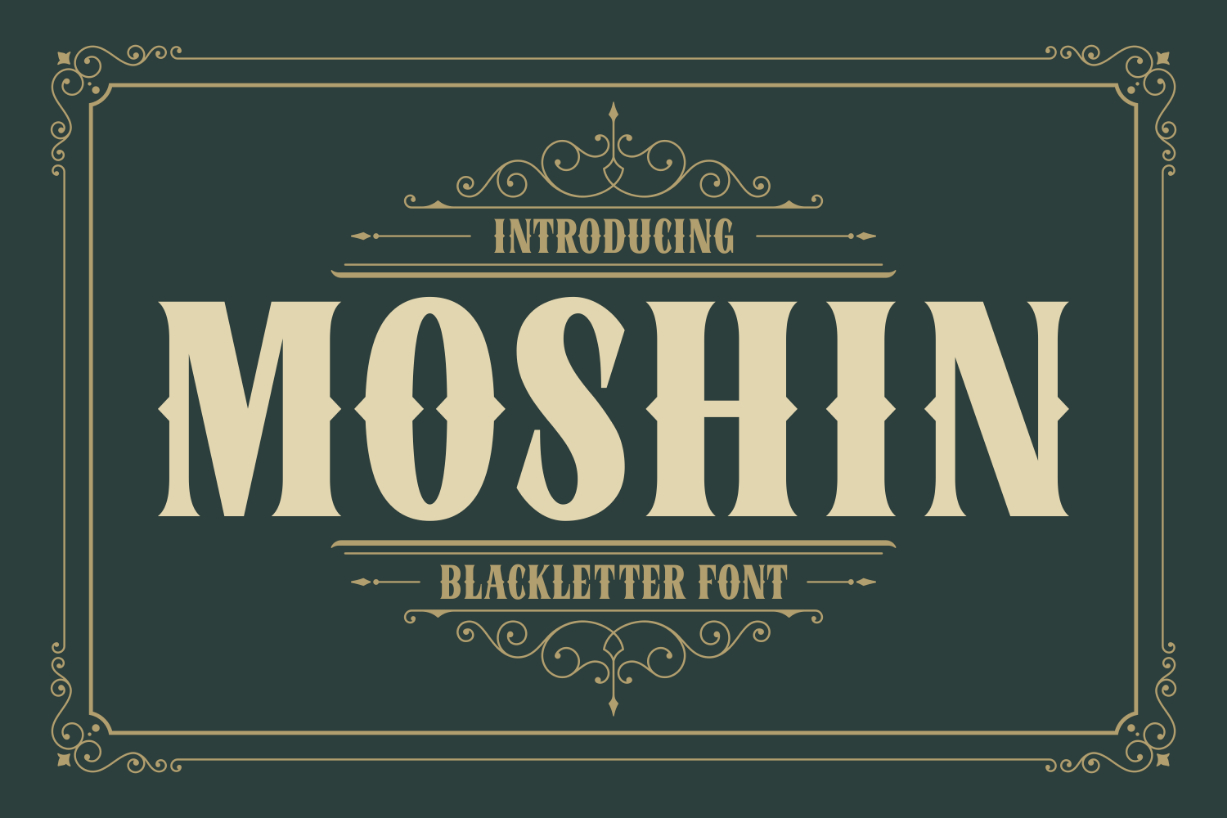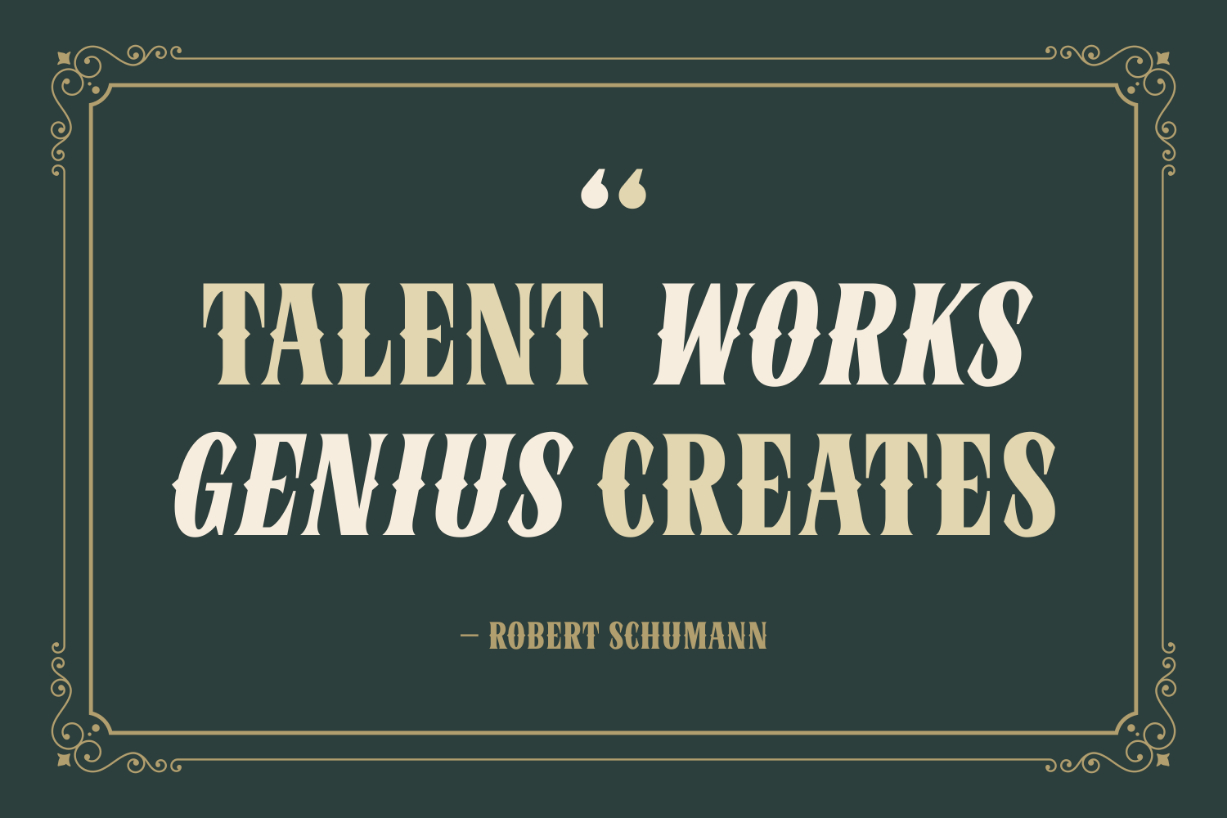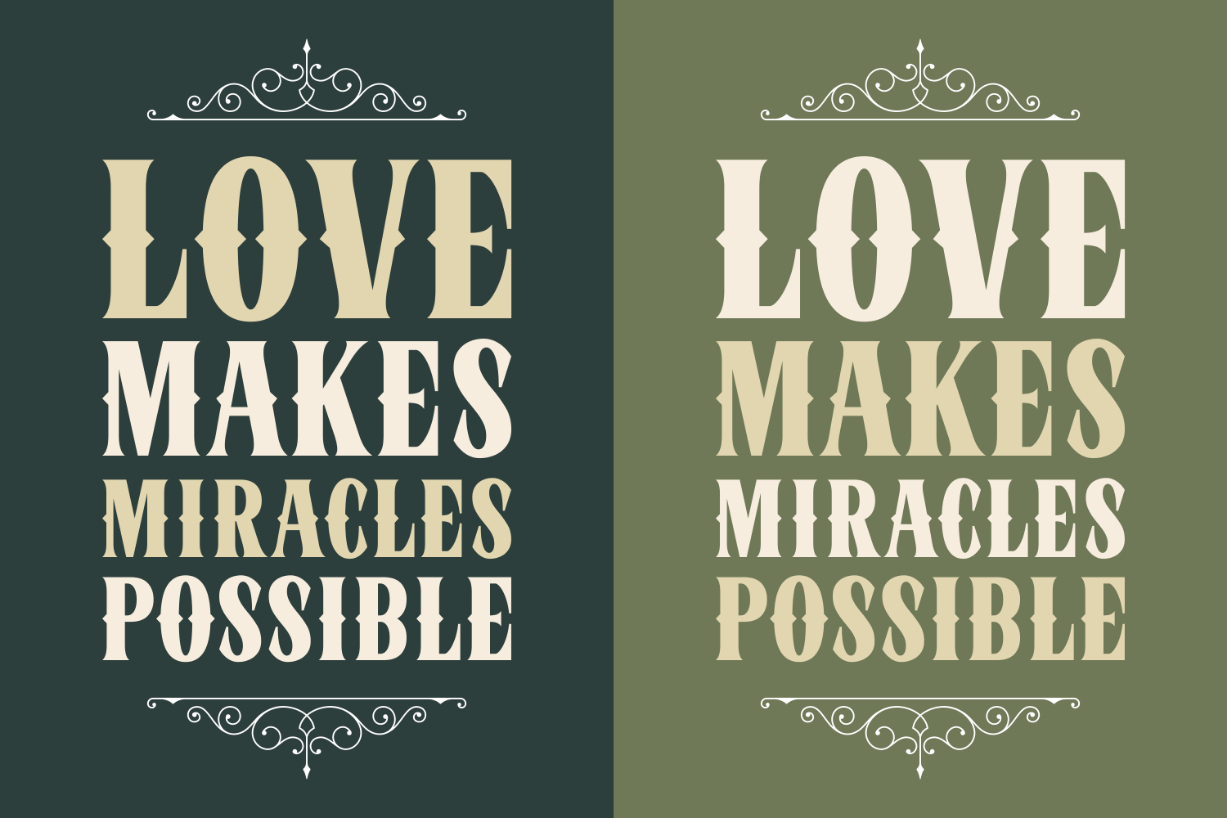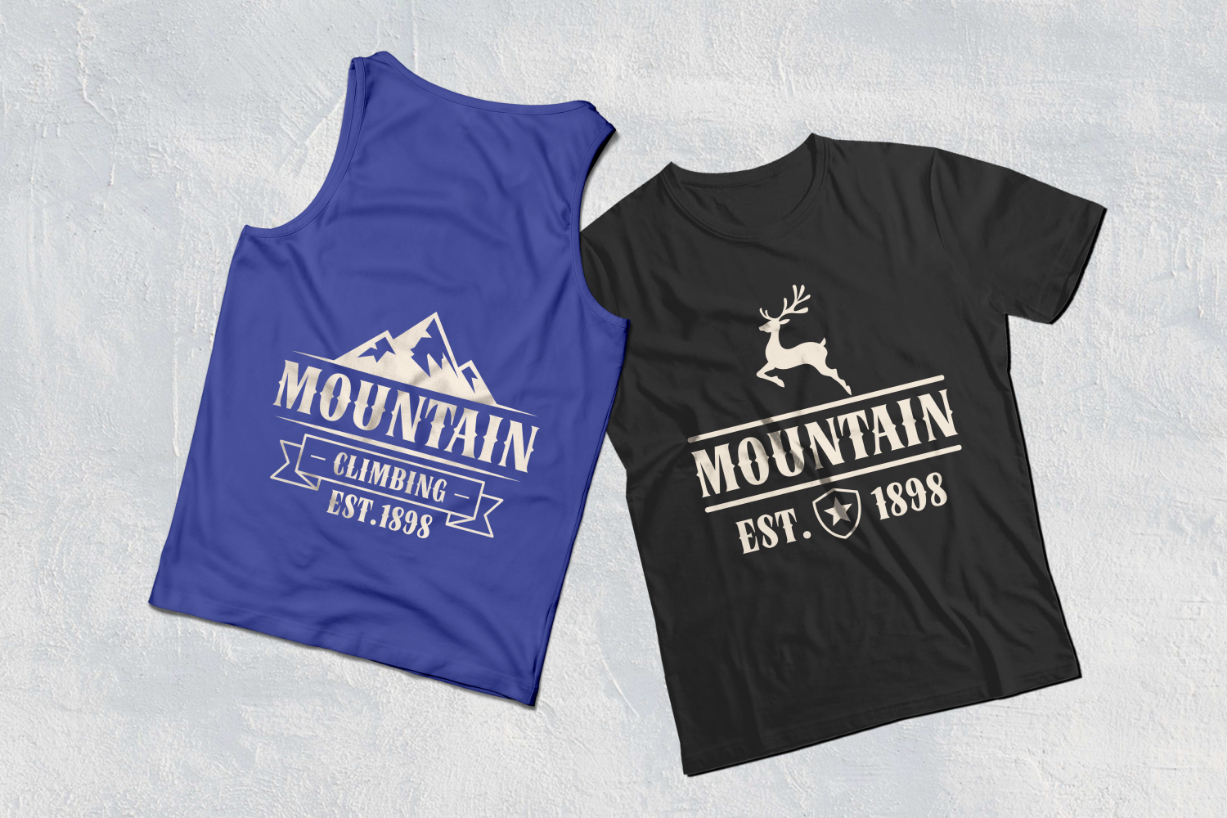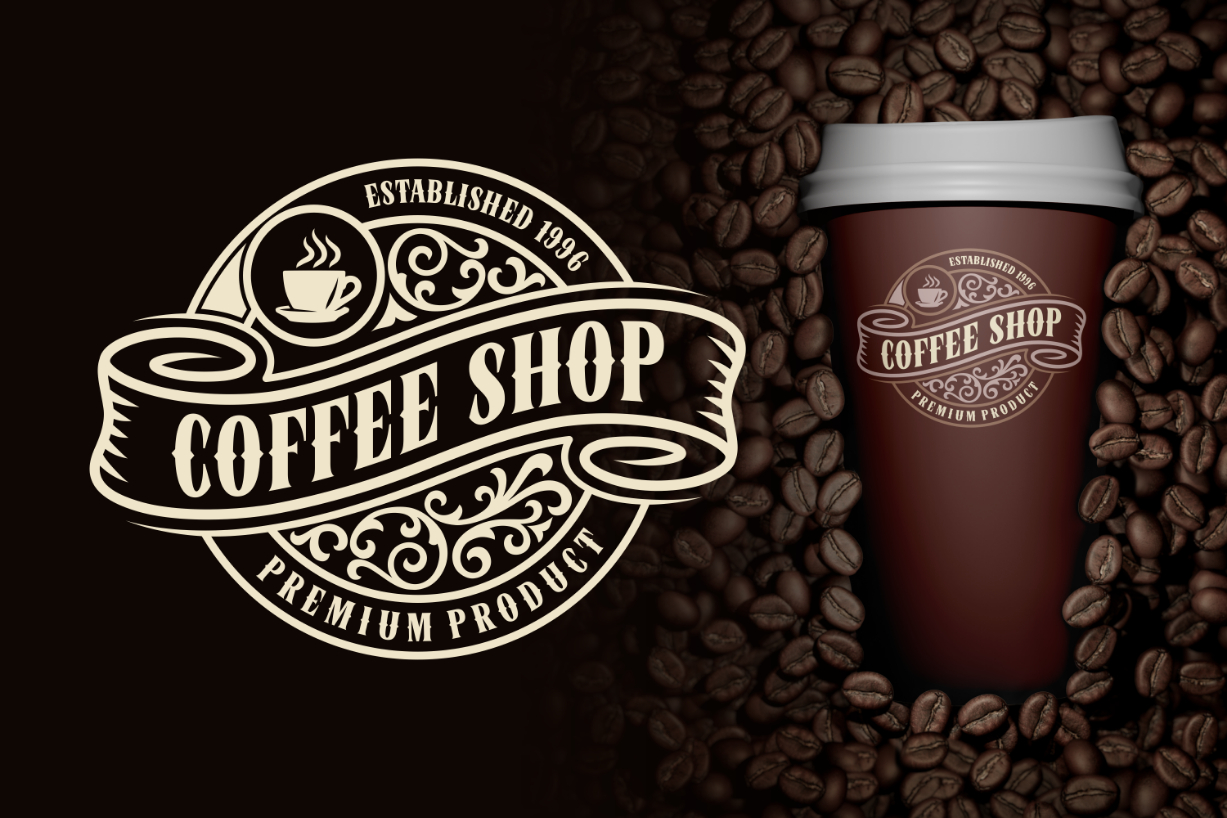
Moshin Font
About Moshin Font
Moshin, a blackletter font, brings bold vibes with its strong, stylish strokes. Perfect for making a statement, it adds a touch of medieval charm to your designs. Ideal for headings and special occasions, Moshin makes text stand out with its unique, edgy appeal. Embrace the vintage feel and give your projects a distinct character with this impactful blackletter font.